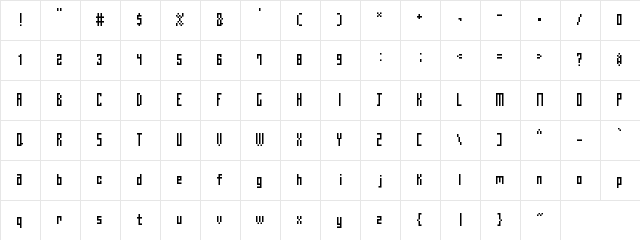
Thin Stick Regular
| Designer | Elfman-Rox |
Design Context for Thin Stick Typeface
Thin Stick offers clean, dependable letterforms without strong stylistic allegiance, making it a practical choice for designers who need flexibility. Its slender proportions lend an understated elegance to any composition.
Pro Tip: Use Thin Stick in both headline and body roles to test its range before committing to a single application.